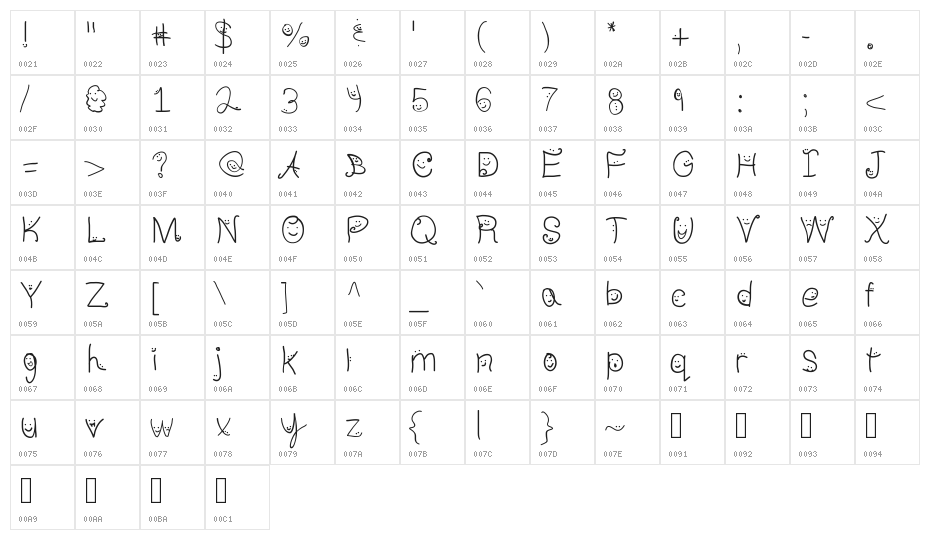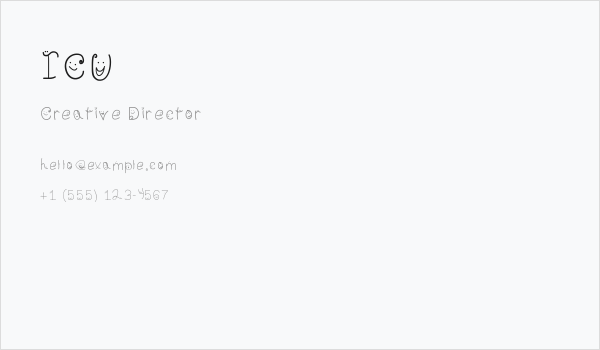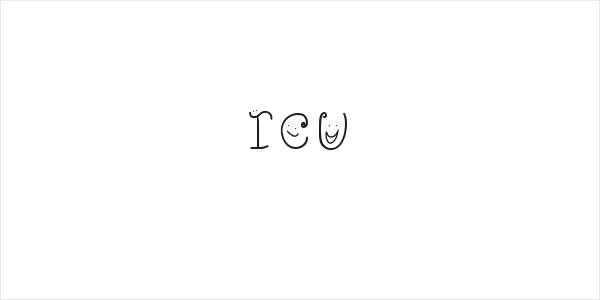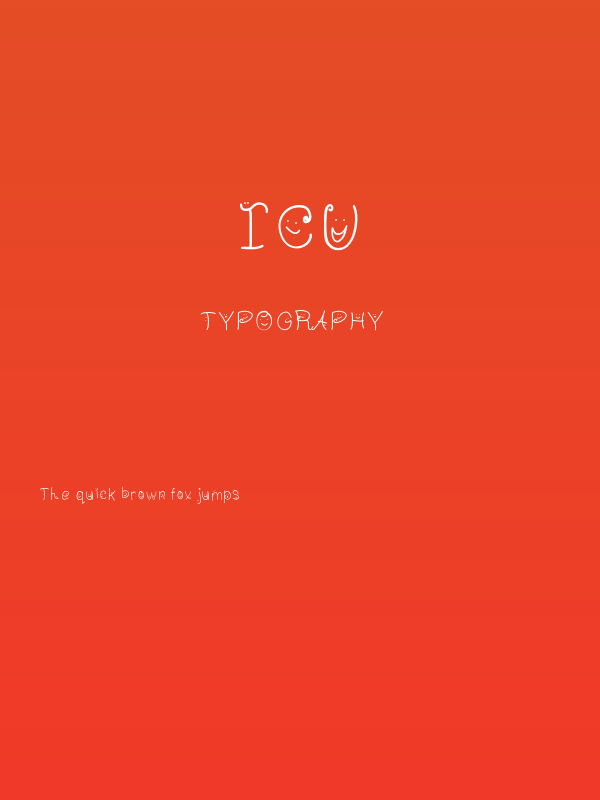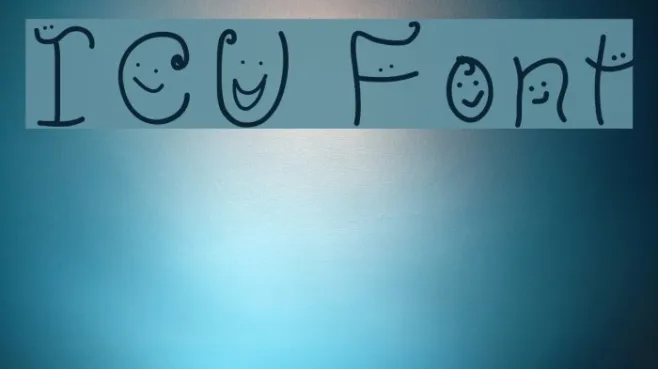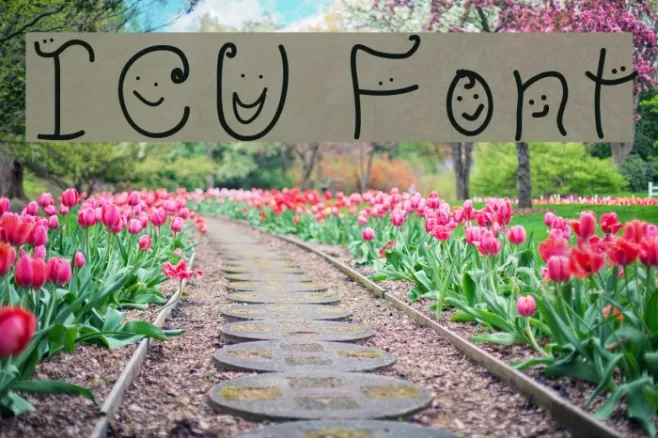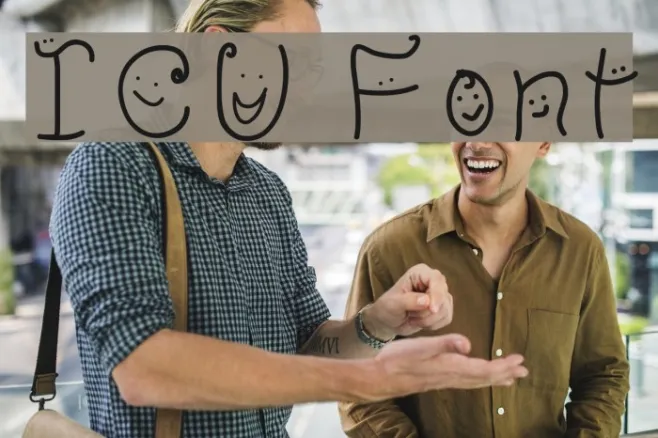
ICU Font
ICU Description
This whimsical and playful font features a unique design with each character incorporating small, smiling faces. The letters are thin and slightly irregular, giving them a hand-drawn appearance. The uppercase and lowercase letters maintain a consistent style, with rounded edges and a light-hearted feel. Numbers and special characters follow the same playful theme, making this font perfect for projects that require a fun and informal touch. The overall design is decorative, with a focus on creativity and individuality.
| Proposed Projects | Ideal for children's books, playful branding, greeting cards, and creative posters. |